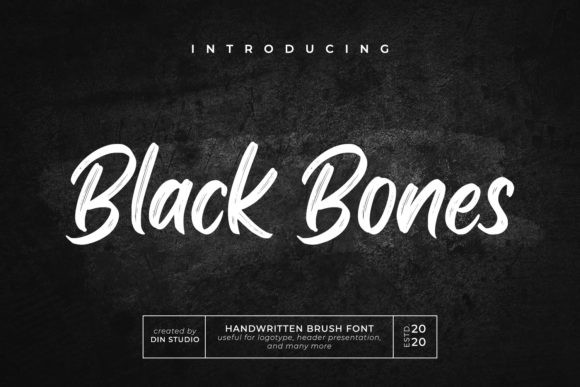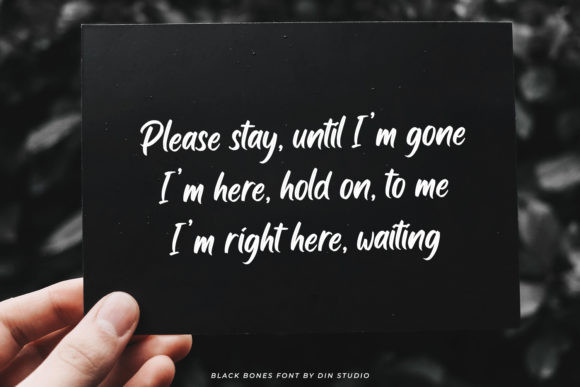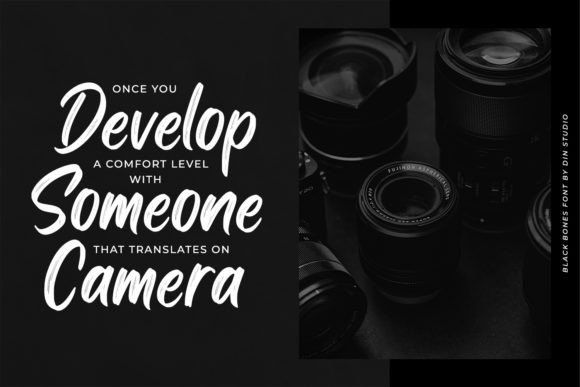
Black Bones Font
Black Bones is a classy script font. Combined with brush textured handwritten will make your design projects more powerful. It will elevate a wide range of design projects to the highest level, be it branding, headings, wedding designs, invitations, signatures, logos, labels, and much more!